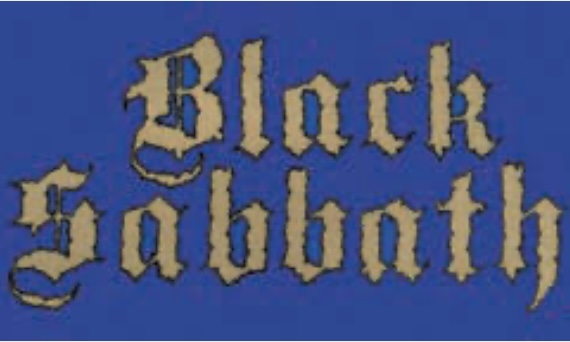
That’s basically (one of the many versions of) Fette Gotisch. The chipped edges appear to be an effect that was applied to the letterforms, and not part of the typeface itself: if you compare the three a’s, you’ll find that the notches aren’t in the same places.